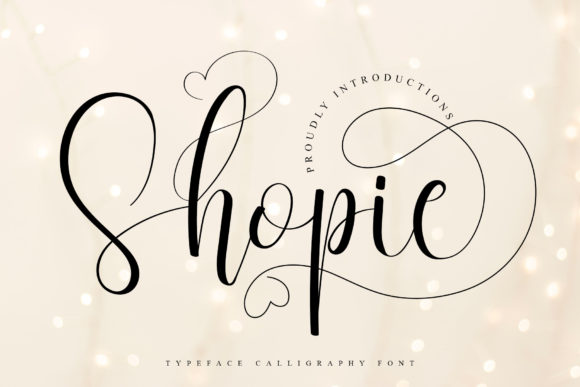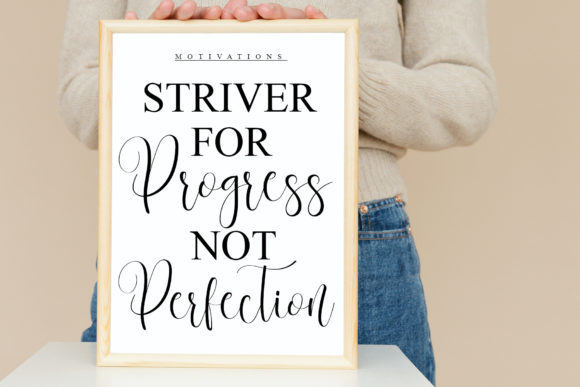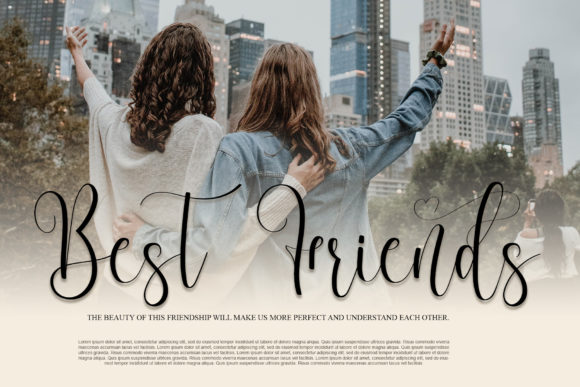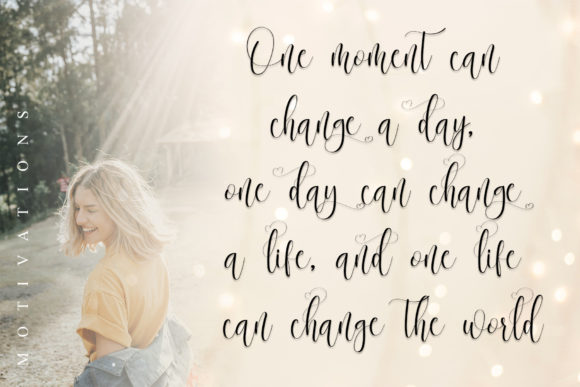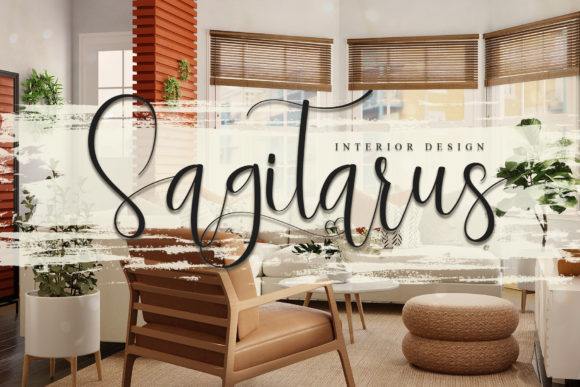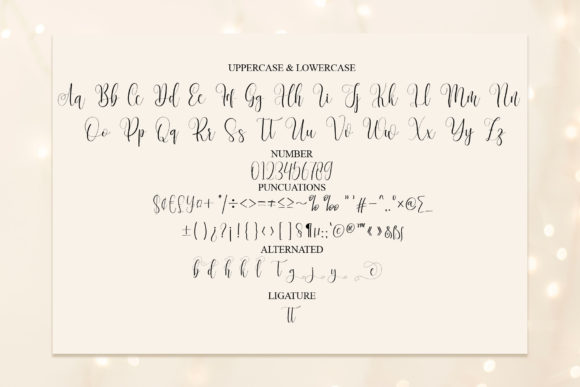
Shopie Script Font
Shopie Script is a captivating and intricately designed script font that exudes romance and charm. Its intricate details and graceful curves make it an ideal choice for enhancing the beauty of your love letters, wedding invitations, and various design projects.
With its elegant and romantic appearance, Shopie Script adds a touch of sophistication and allure to your creations. The font’s delicate strokes and flowing lines create a sense of movement and elegance, capturing the essence of special moments and heartfelt sentiments.
Whether you’re expressing your love through a handwritten letter, inviting guests to a wedding, or infusing your design ideas with a romantic flair, Shopie Script is sure to impress. Its dazzling and detailed nature elevates the visual appeal of your projects, leaving a lasting impression on recipients and viewers.
The font’s versatility allows it to shine in a variety of contexts, from love letters and wedding invitations to branding materials and creative designs. Its ability to evoke emotions and convey a sense of intimacy makes it a perfect choice for projects that require a touch of romance and elegance.
By adding Shopie Script to your creative toolkit, you’ll unlock a world of possibilities for showcasing your affection, celebrating special occasions, and creating designs that resonate with authenticity and beauty.